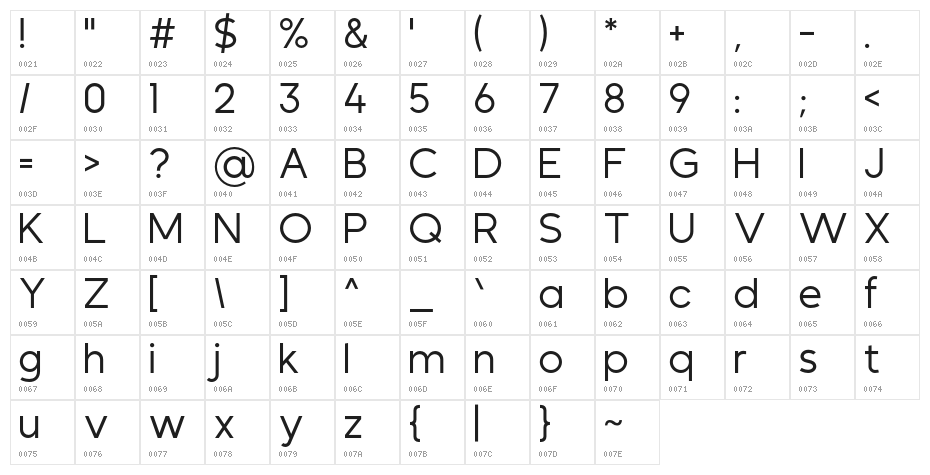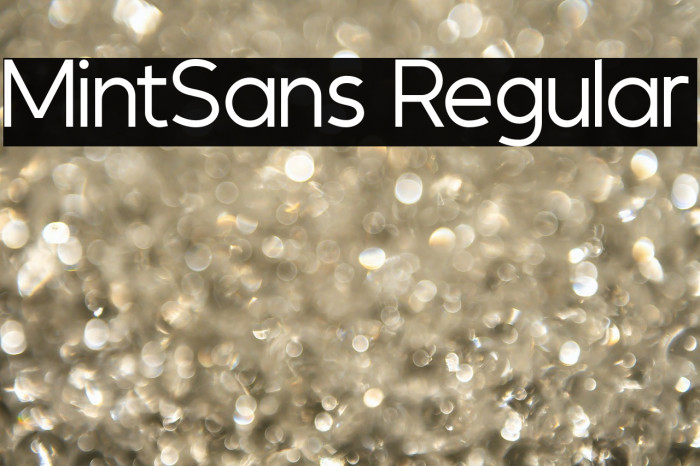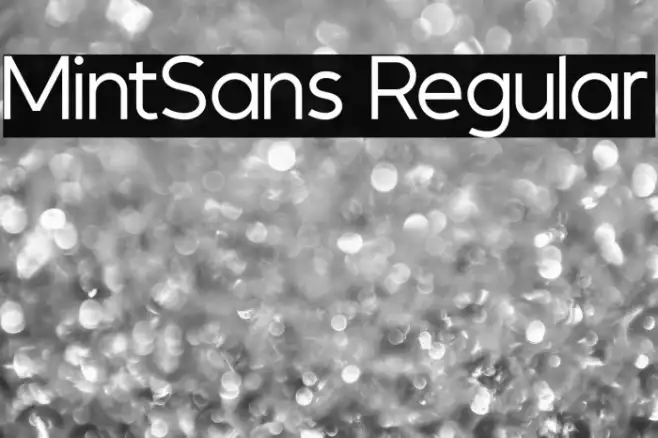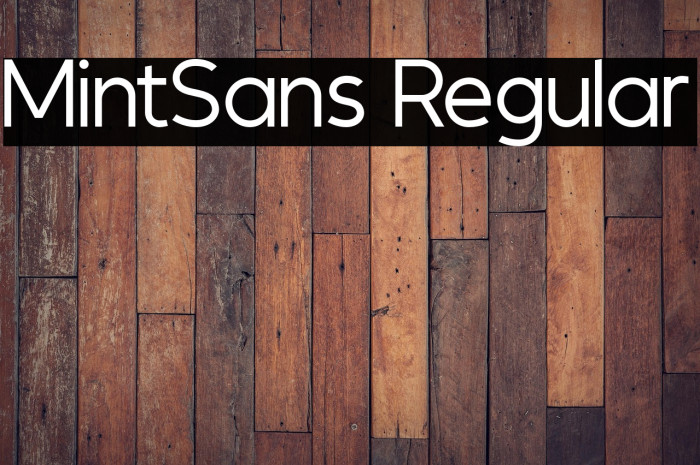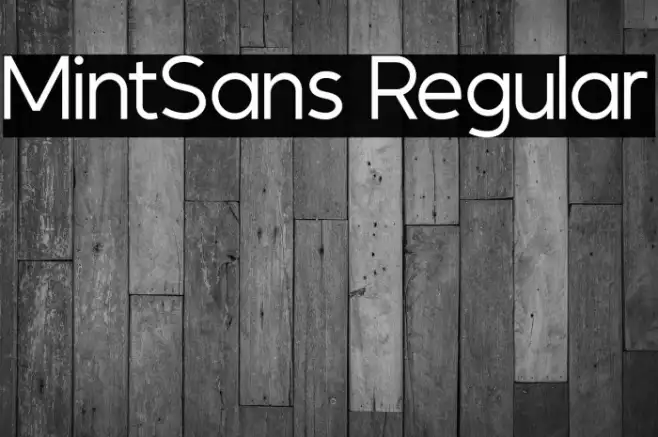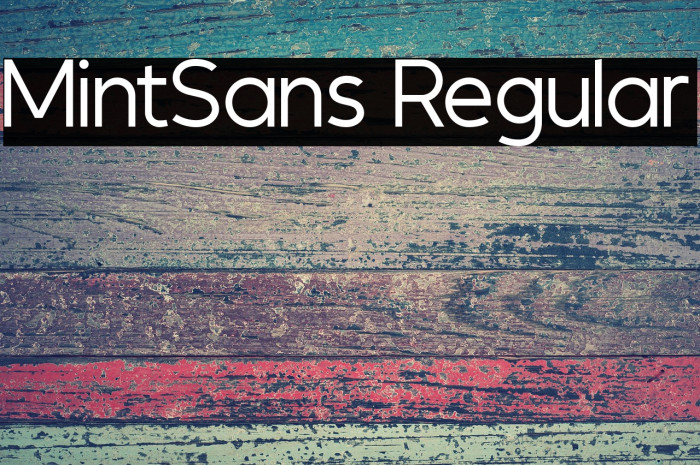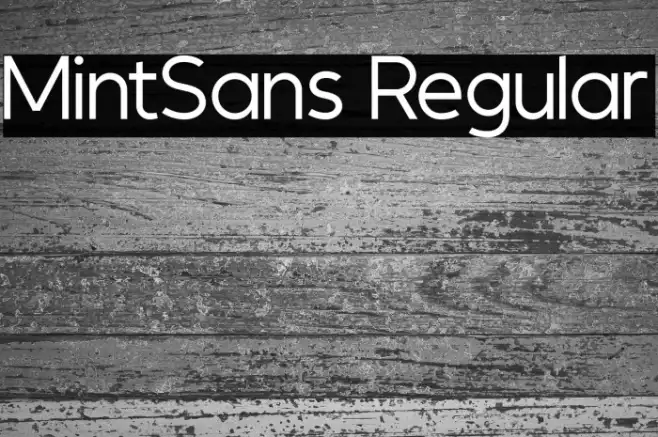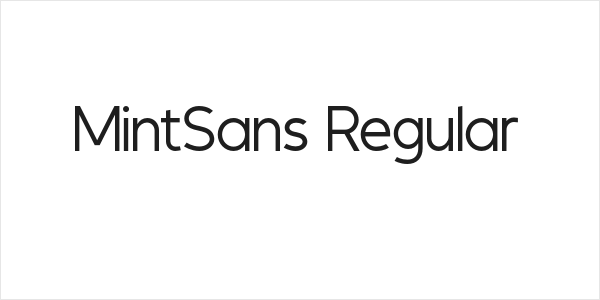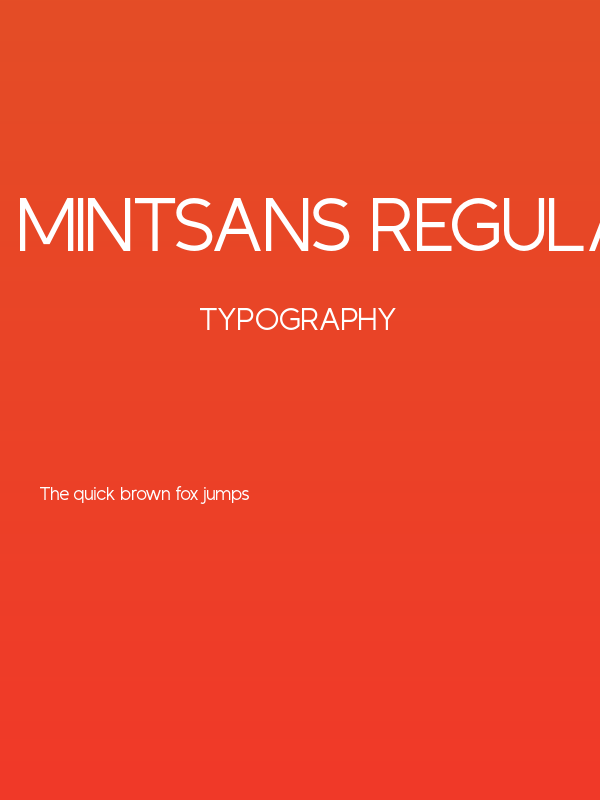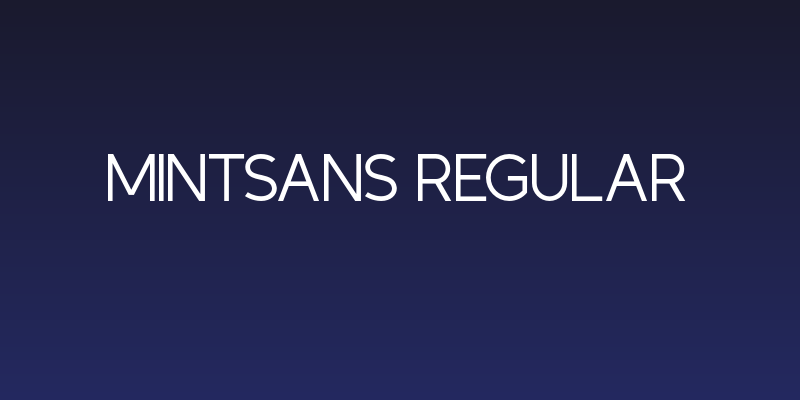
MintSans Regular Font
MintSans Regular Description
This font features a clean and modern sans-serif design with a geometric structure. The characters are evenly spaced, providing a balanced and harmonious appearance. The uppercase letters are bold and assertive, while the lowercase letters maintain a friendly and approachable look. The numerals are clear and easy to read, making them suitable for various applications. The special characters are designed with the same geometric precision, ensuring consistency throughout the font. This typeface is versatile and can be used in a wide range of design projects.